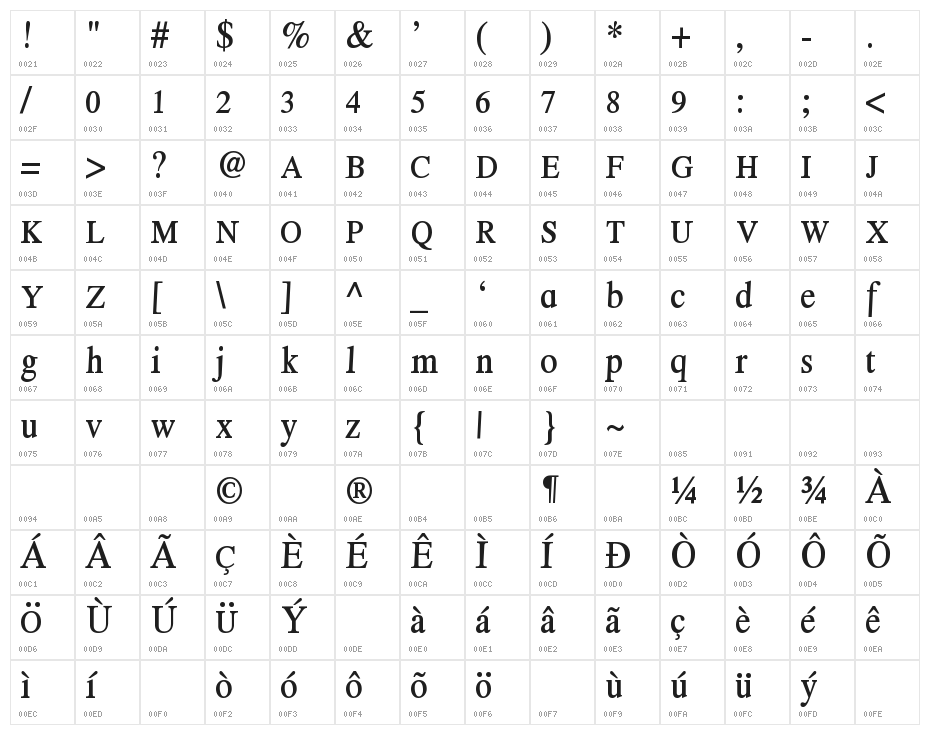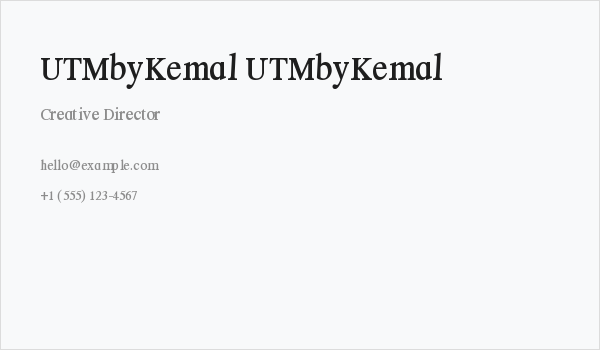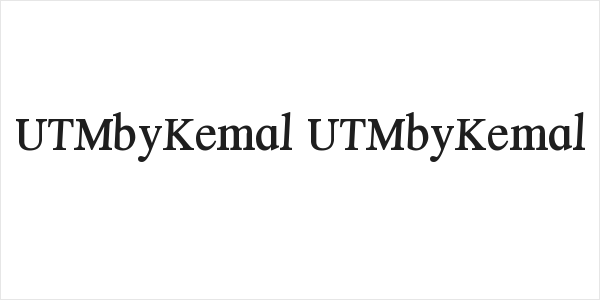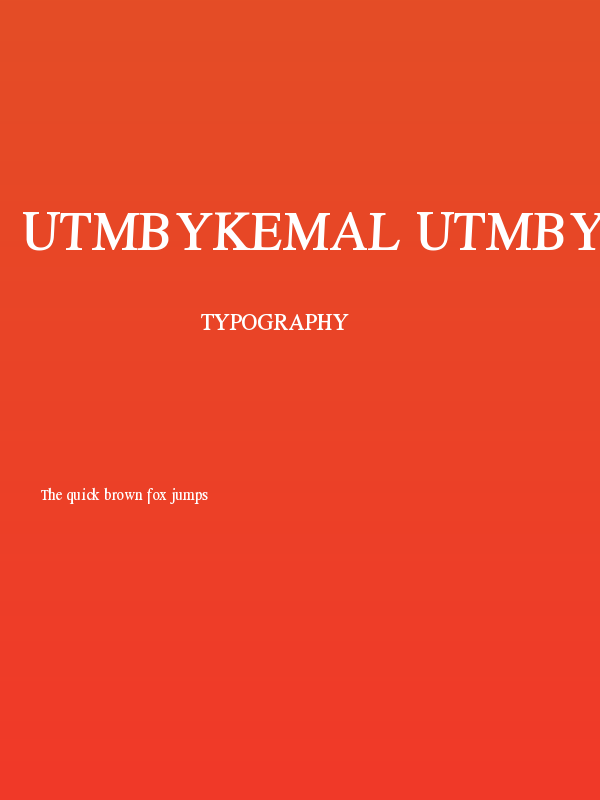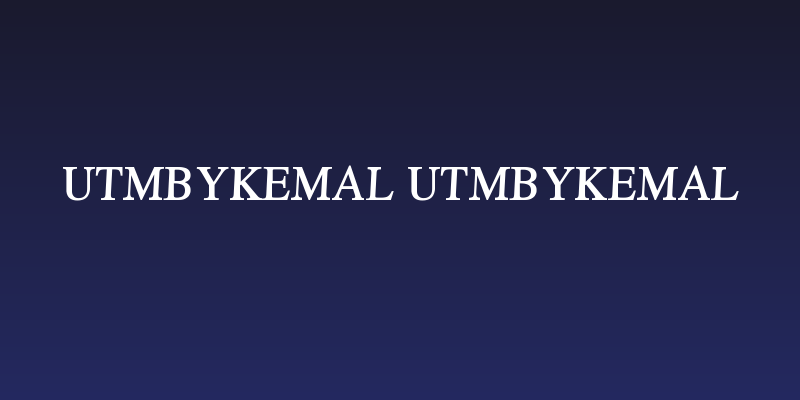
UTMbyKemal Font
UTMbyKemal Description
This font features a classic serif style with strong, bold strokes and high contrast between thick and thin lines. The serifs are pronounced, giving it a traditional and authoritative appearance. The uppercase letters are tall and commanding, while the lowercase letters maintain a consistent and readable form. The numerals are clear and distinct, matching the overall boldness of the alphabet. Special characters are well-defined, adding to the font's versatility. This font is suitable for projects that require a formal and professional look.
| Proposed Projects | Ideal for book covers, editorial design, formal invitations, and corporate branding. |